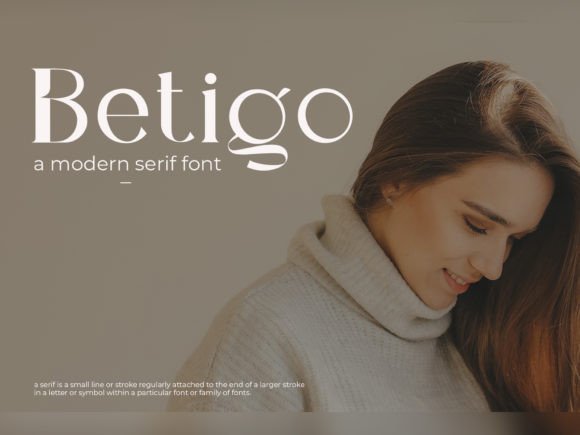
Witness the allure of Betigo, a captivating serif font that exudes elegance and sophistication. Its timeless beauty has graced the pages of Vogue Magazine, captivating readers with its charm. Betigo's delicate curves and graceful lines evoke a sense of nostalgia, reminiscent of vintage typography. Whether you're crafting a stunning logo, designing a captivating magazine, or creating engaging social media content, Betigo will elevate your project with its timeless appeal.
Unleash your creativity with Betigo's versatility, a font that seamlessly adapts to a myriad of design styles. Its classic serif structure lends a touch of sophistication to brochures and marketing materials, while its contemporary flair adds a modern edge to digital designs. Betigo's adaptability knows no bounds, making it the perfect choice for designers seeking a font that transcends trends and remains eternally stylish.
With Betigo, simplicity meets elegance, creating a font that captivates with its understated beauty. Its clean lines and refined details allow your content to take center stage, ensuring that your message shines through. Betigo's simplicity is its strength, allowing it to harmonize effortlessly with various design elements, creating a cohesive and visually appealing aesthetic.
Embrace the allure of Betigo, a font that speaks to the heart and ignites imagination. Its timeless design and versatile nature make it an essential tool for designers seeking to create captivating and memorable designs. Betigo is more than just a font; it's an invitation to embark on a creative journey where elegance, versatility, and simplicity intertwine to produce masterpieces that endure the test of time. Seize the opportunity to leave an indelible mark with Betigo, a font that will elevate your designs to new heights of artistry.